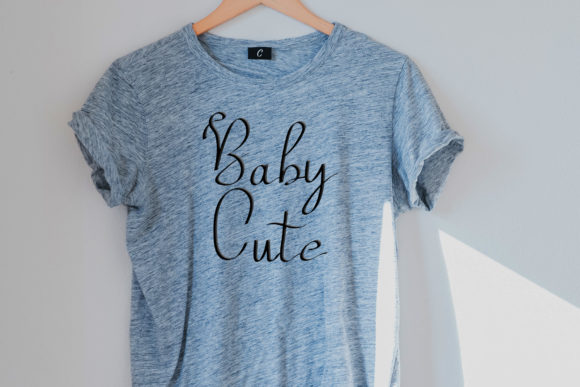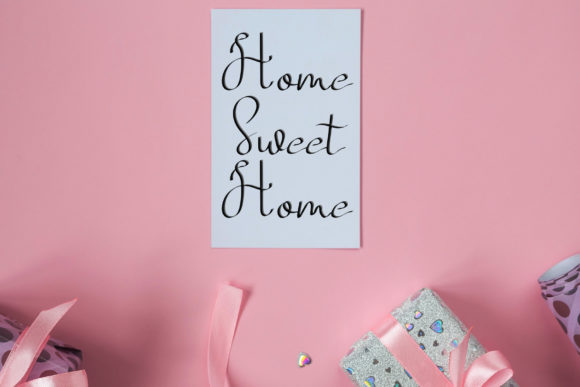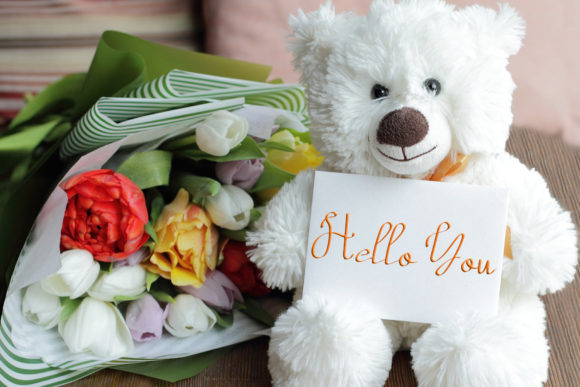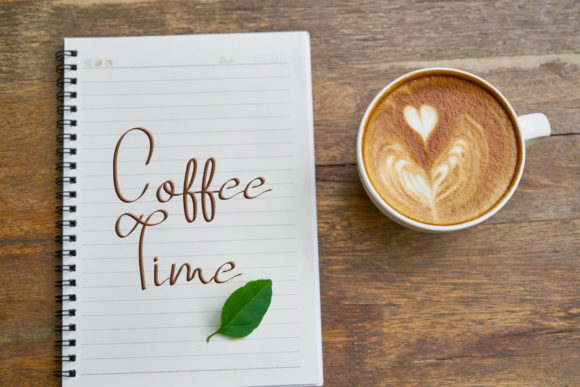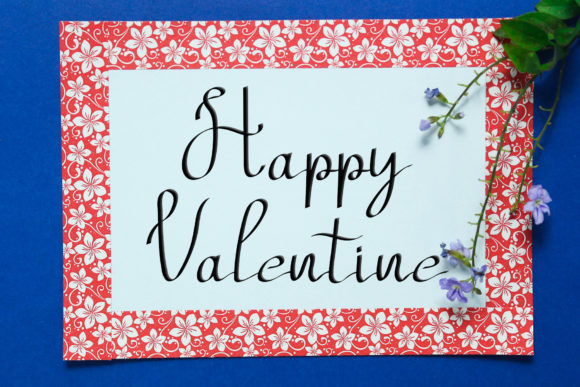
Amanda Font
About Amanda Font
Amanda is a very creative handwritten font. Expertly designed to make your designs unique and creative, this font has the potential to take your creative ideas far further. This font would be ideal for writing wedding invitations, greeting cards, web designs, business cards, or any other design that requires a subtle and elegant hand touch!